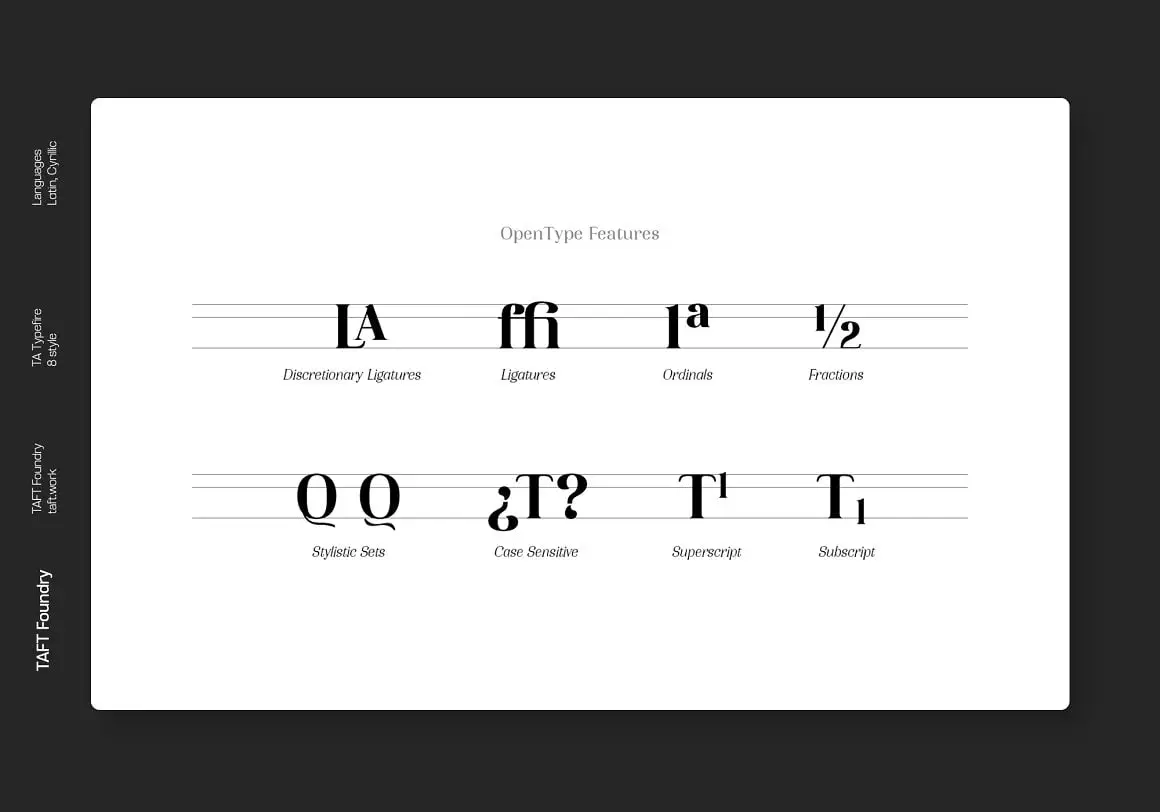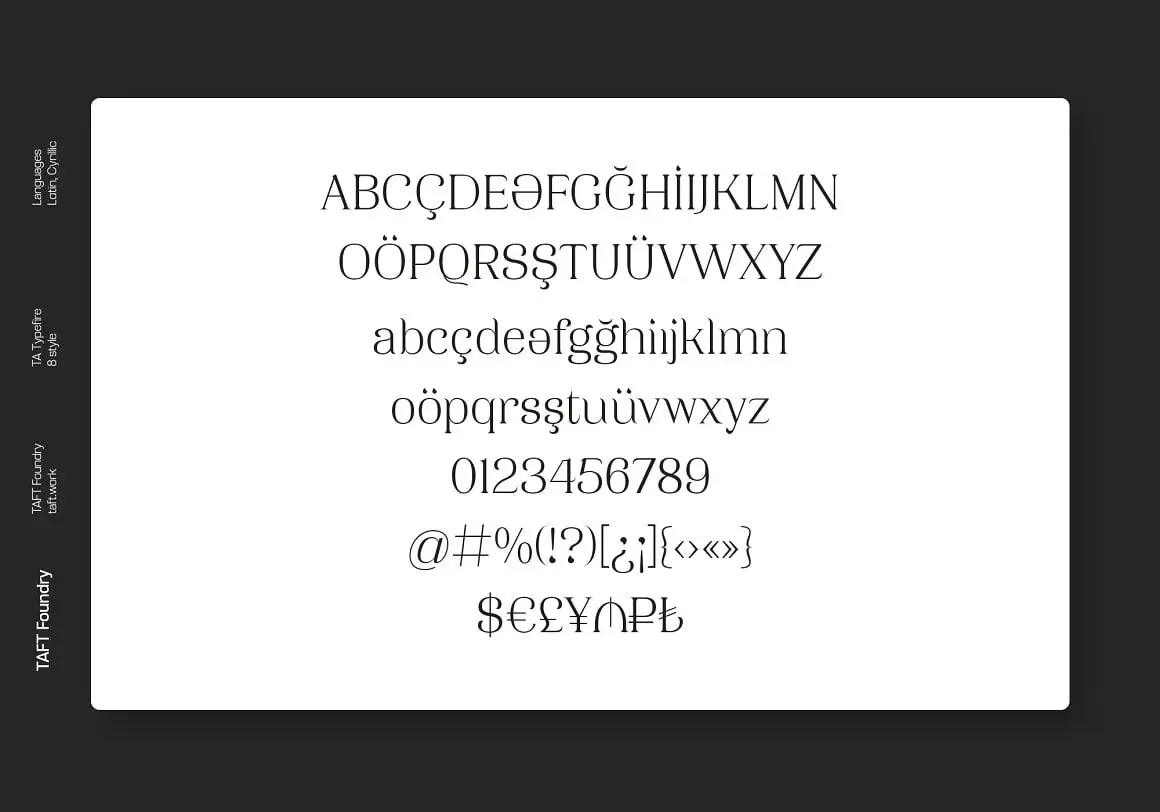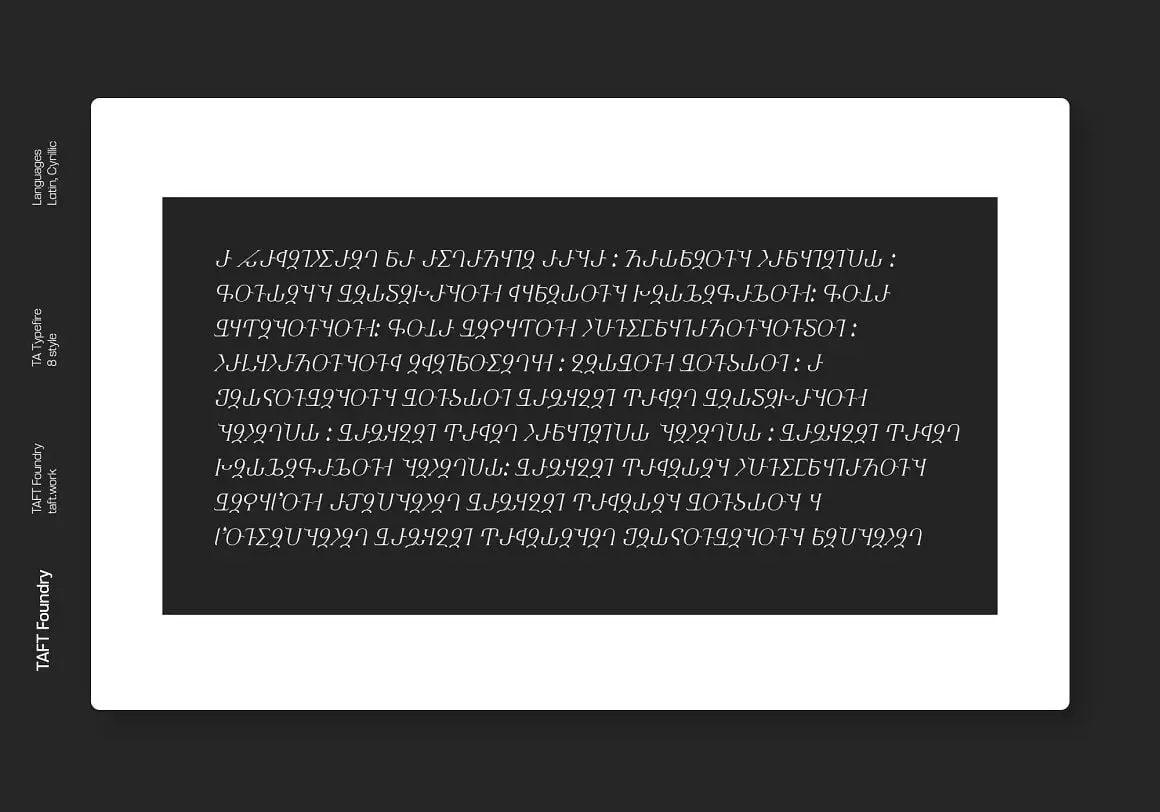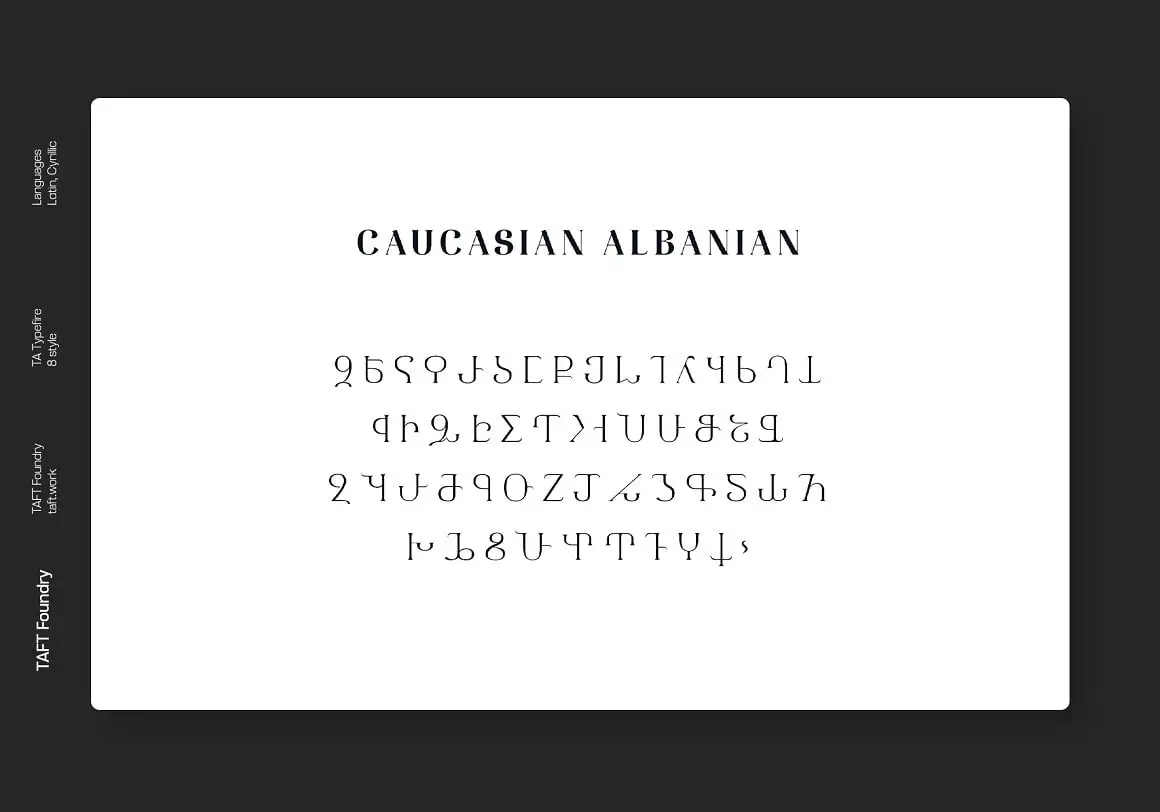
Taft Foundry-Ta Typefire Typeface Extended Latin & Cyrillic
The Taft Foundry-Ta Typefire Typeface is a versatile font designed to support both Extended Latin and Cyrillic scripts. This typeface is perfect for a variety of applications, from branding and logos to print and web design.
• Supports Extended Latin and Cyrillic characters
• Multiple weights for flexibility in design
• Clean and modern aesthetic suitable for various styles
• Ideal for branding projects, editorial design, and digital interfaces
• Use different weights to create visual hierarchy in your designs